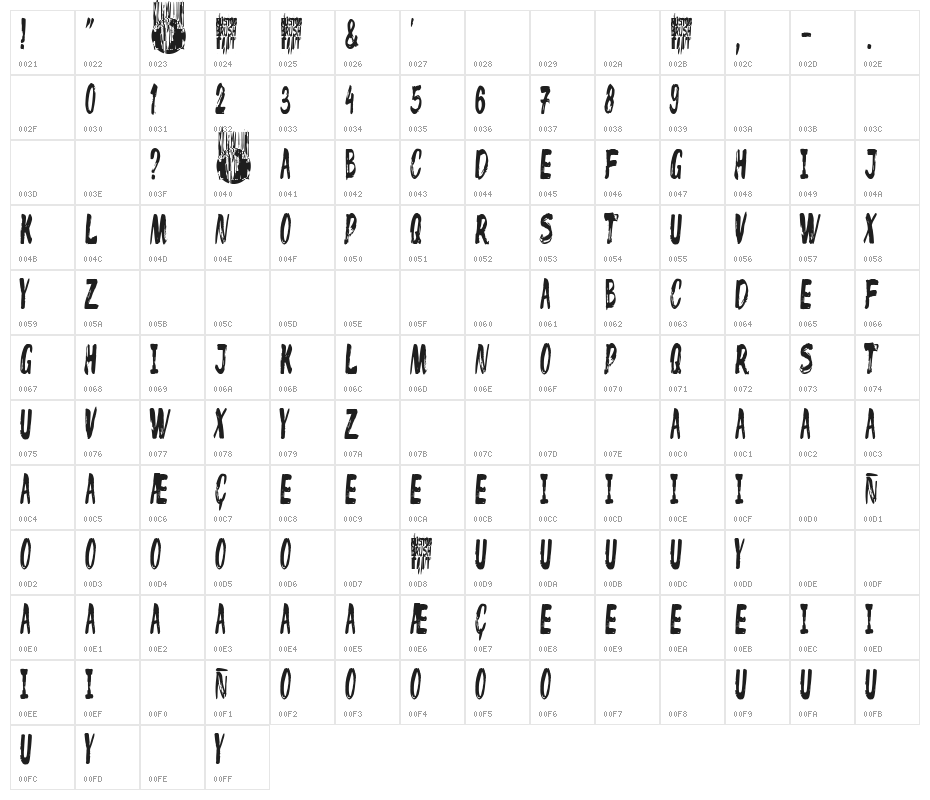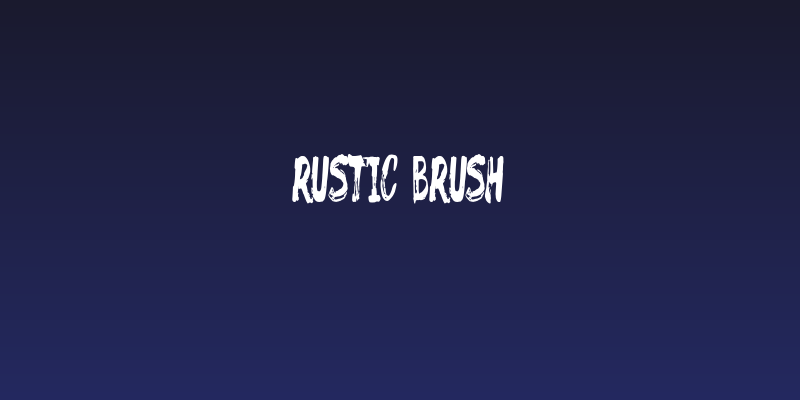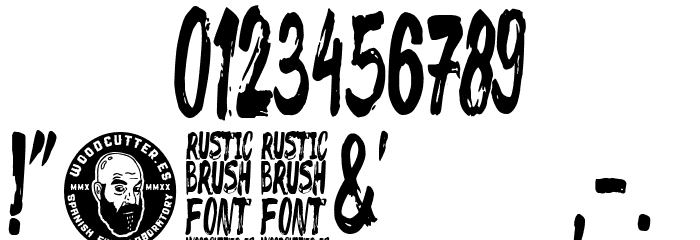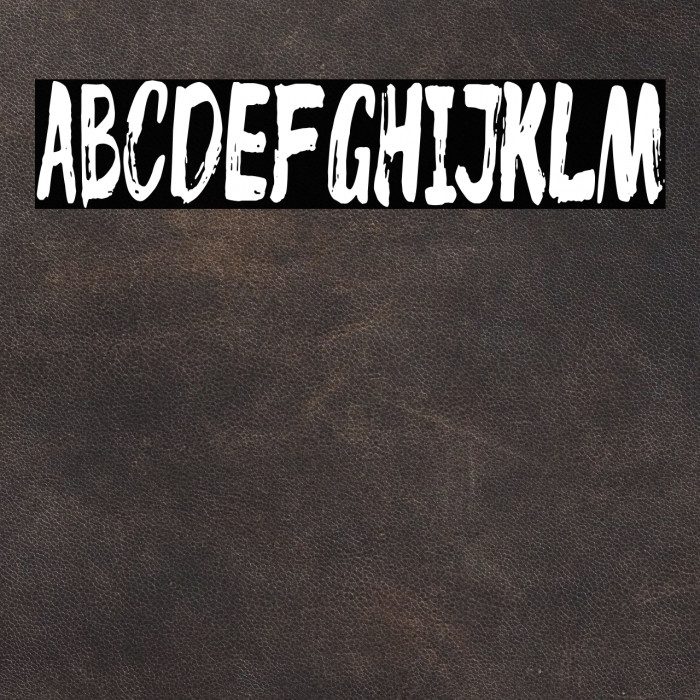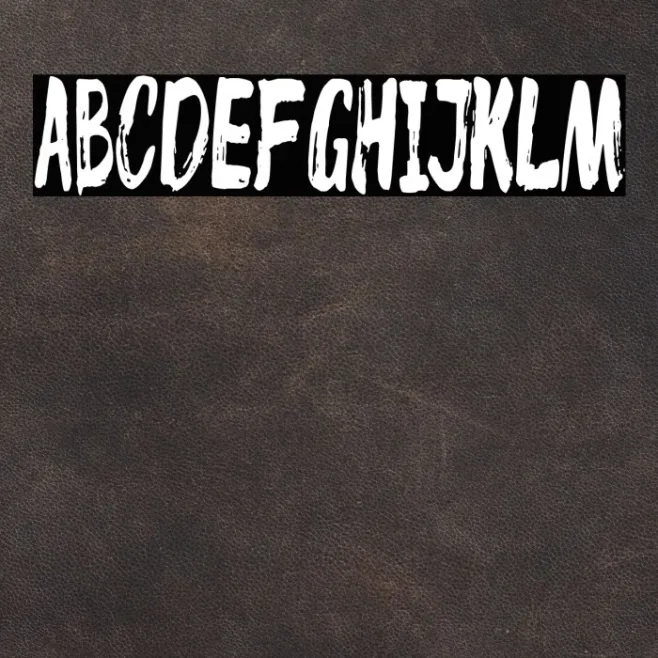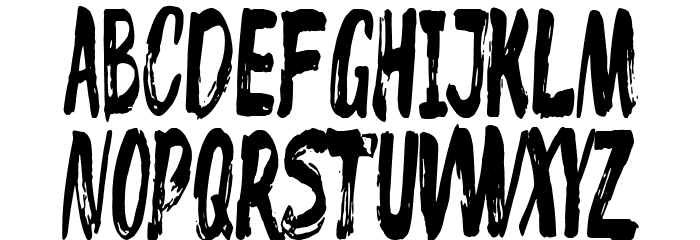
Rustic Brush Font
Rustic Brush Description
This font features a bold, hand-painted style that exudes a rustic and organic feel. The characters are uneven and textured, resembling brush strokes with varying thickness. This creates a dynamic and energetic appearance, perfect for projects that require a handcrafted or artistic touch. The uppercase and lowercase letters maintain a consistent style, with numbers and special characters following the same aesthetic. The font's rough edges and irregular forms contribute to its unique and eye-catching design.